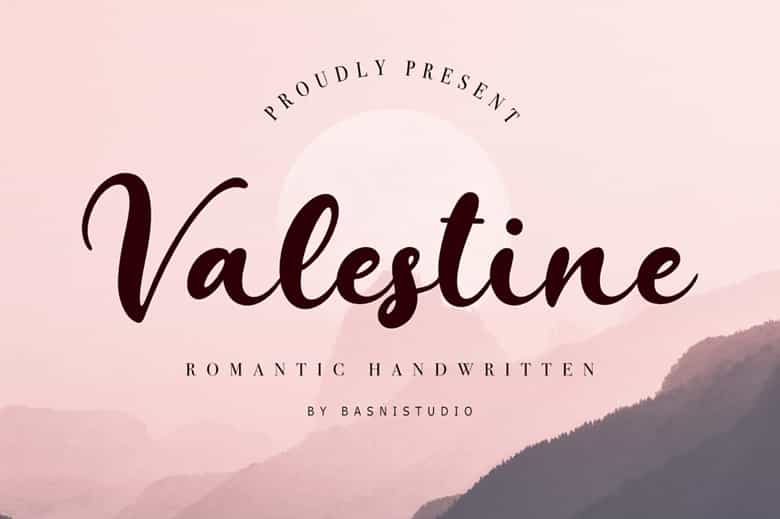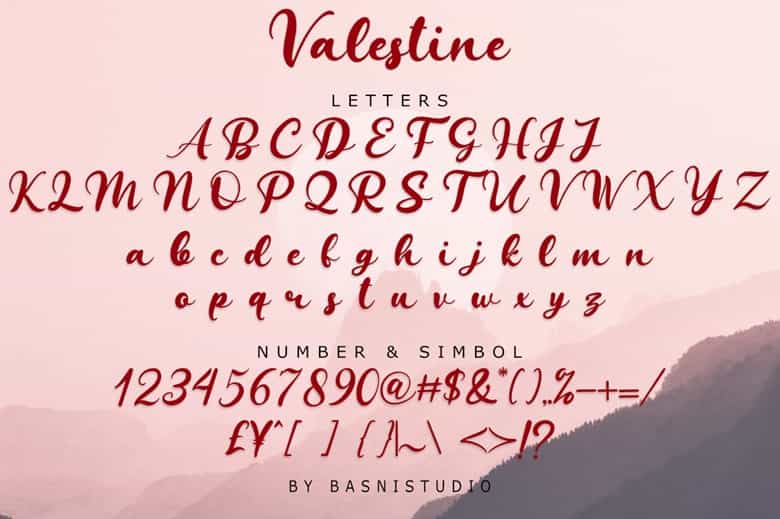
Valestine – romantic handwritten script font, created with love, precision and stylish, suitable for branding, websites as well as editorial designs. All Character letters, multilingual support, punctuation, binding. Anything can be easily accessed through software that has OpenType.